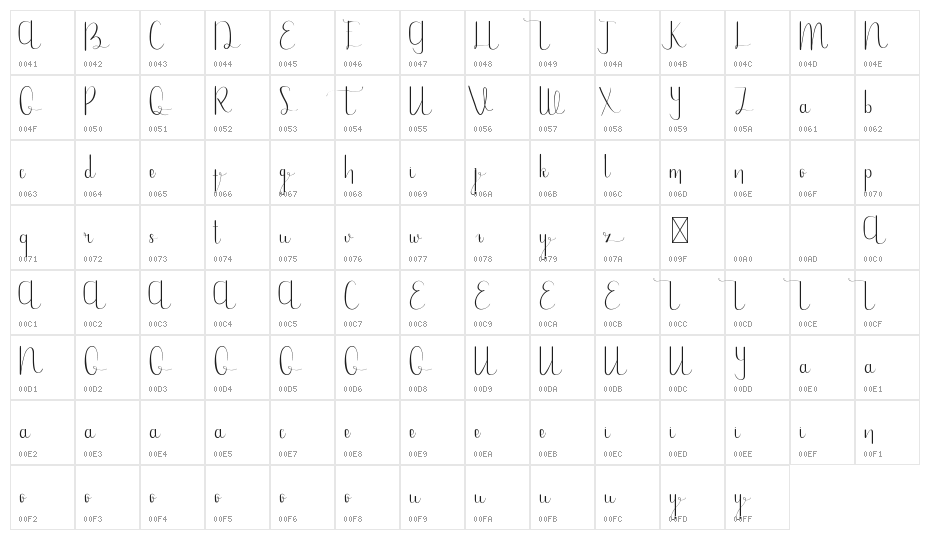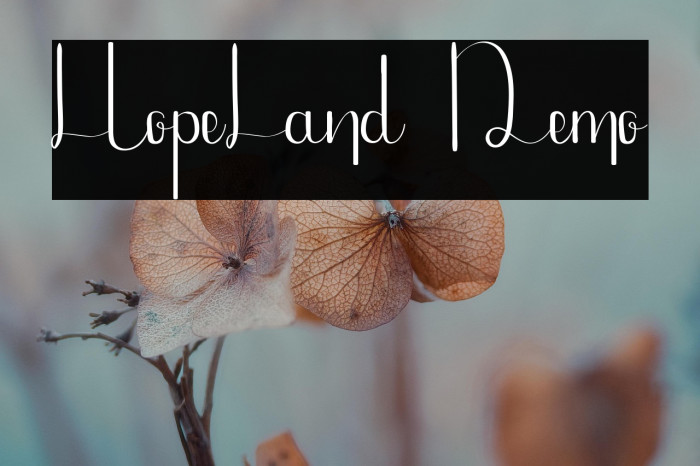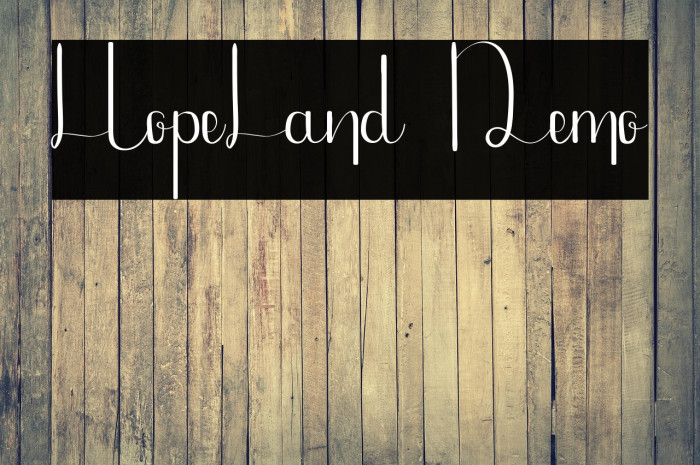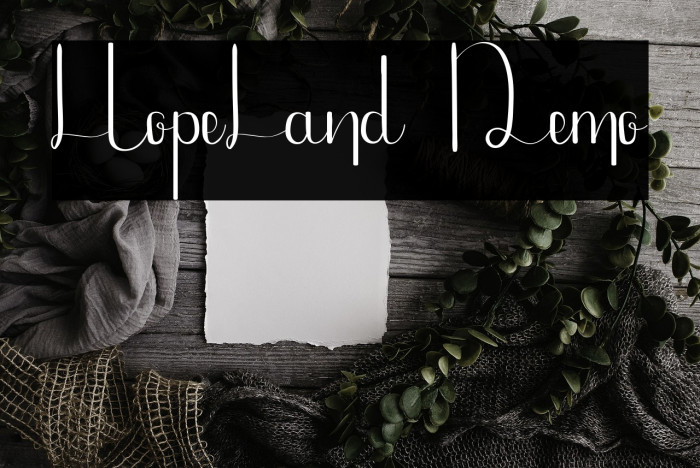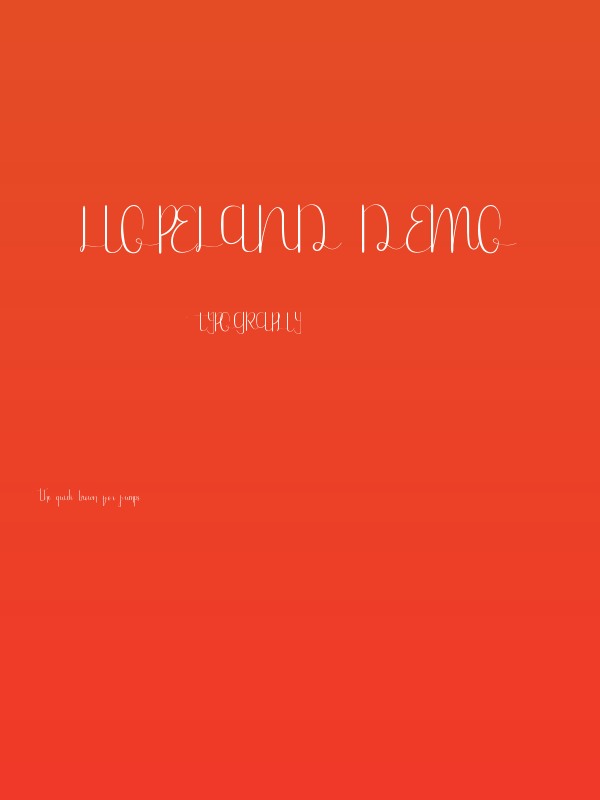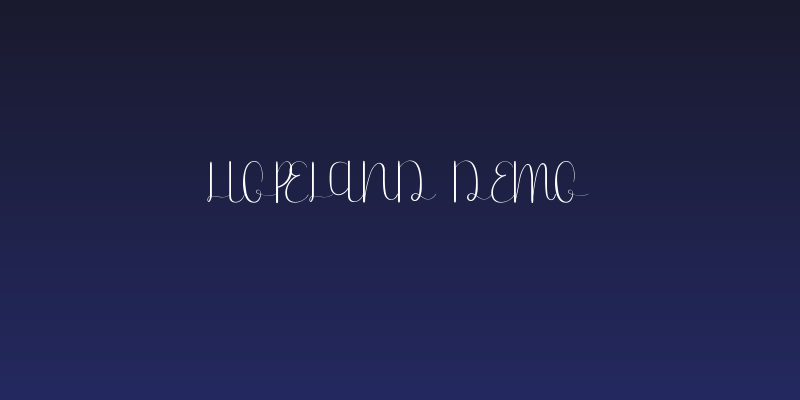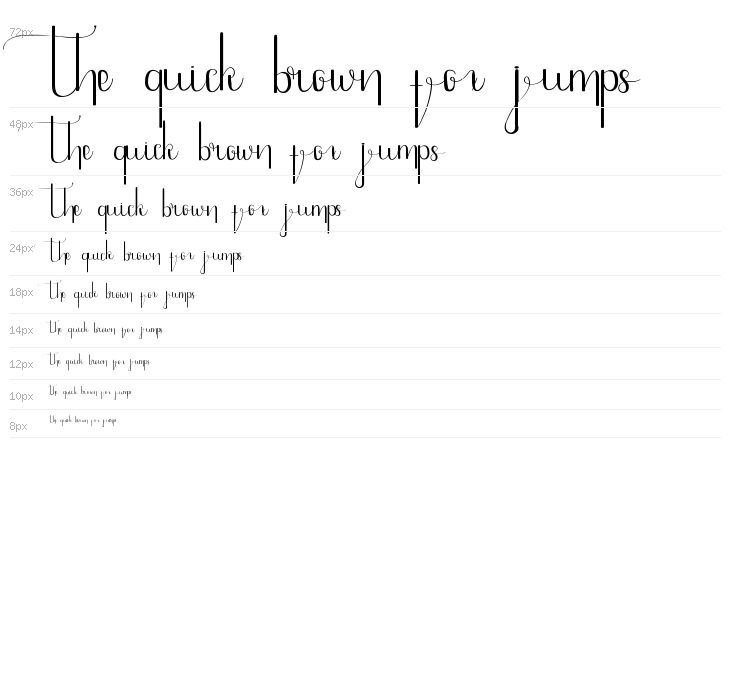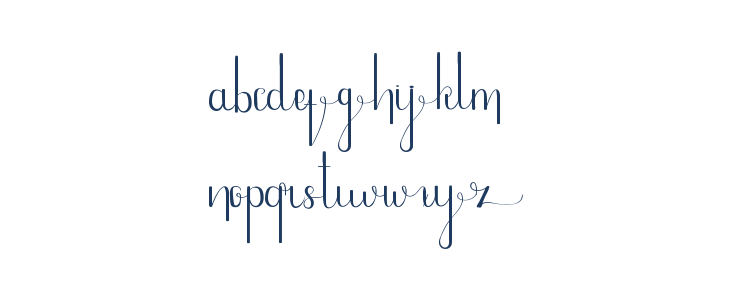
HopeLand Demo Font
HopeLand Demo Description
This font features an elegant and flowing script style, characterized by its intricate loops and swirls that connect each letter seamlessly. The uppercase letters are tall and graceful, with a consistent stroke width that adds a touch of sophistication. The lowercase letters mirror this elegance, maintaining a cohesive look throughout the alphabet. The font's design is both decorative and legible, making it suitable for a variety of creative projects. Its unique style is perfect for adding a personal touch to invitations, branding, and other design elements that require a sense of elegance and flair.
| Proposed Projects | Ideal for wedding invitations, branding, greeting cards, and decorative signage. |